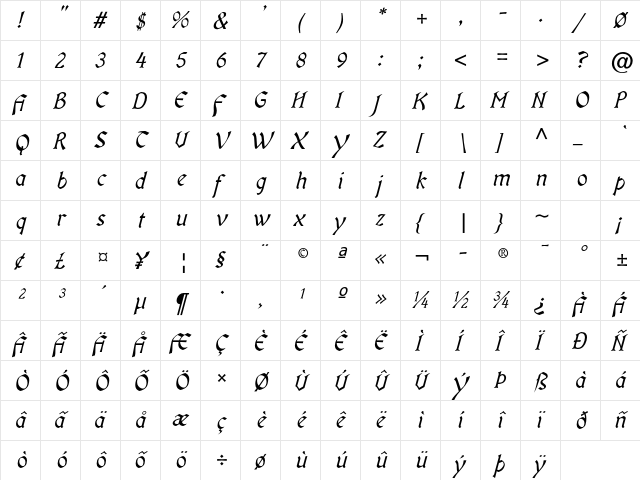
Oldania ADF Std Italic
| Foundry | Arkandis Digital Foundry. |
| Designer | Hirwen HARENDAL |
Design Context for Oldania ADF Std Typeface
Oldania ADF Std takes a measured approach to typography — its balanced proportions and neutral character make it a reliable workhorse for both digital and print work. The slanted form adds forward momentum and visual energy.